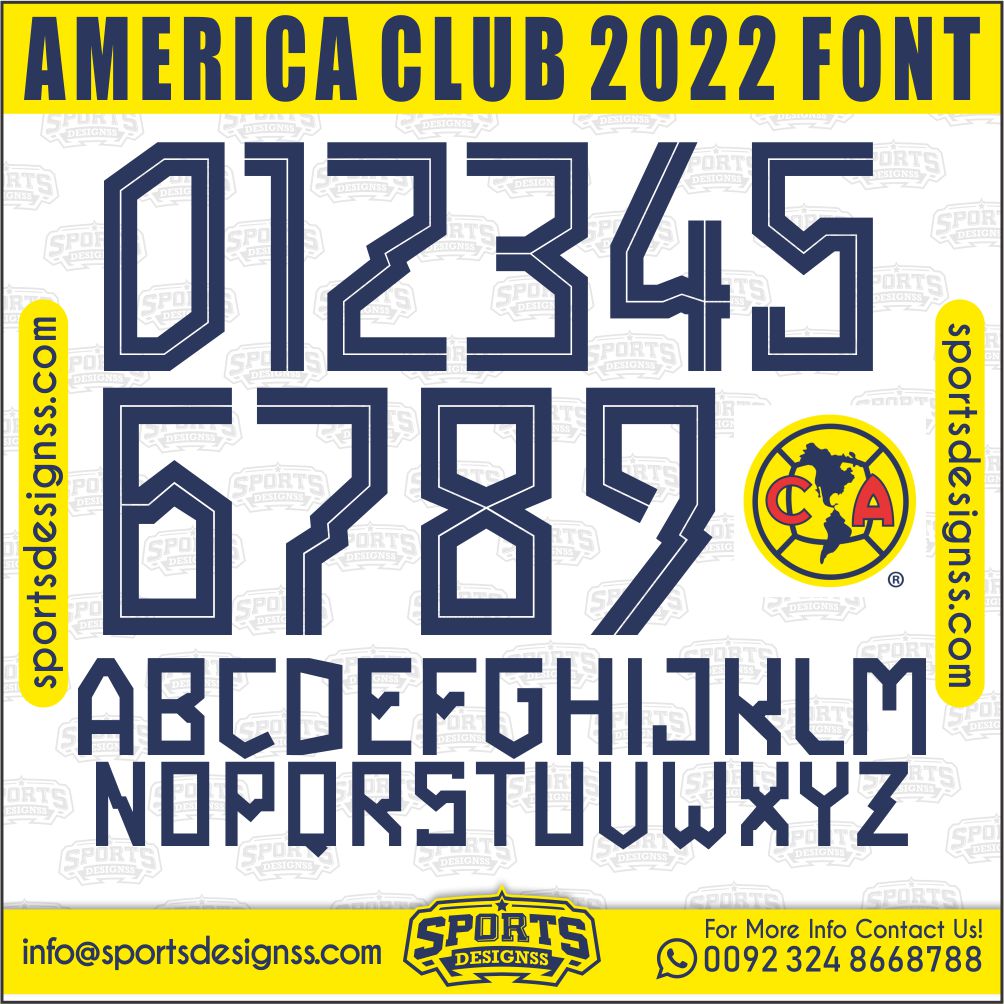
Download the AMERICA CLUB 2022 Font by Sports Designss – a premium football jersey font inspired by modern kits.
Recreate authentic football jersey designs with the AMERICA CLUB 2022, built for realistic, match-ready sports visuals.
Upgrade your designs with the AMERICA CLUB 2022, a premium football jersey font inspired by modern professional sports aesthetics.